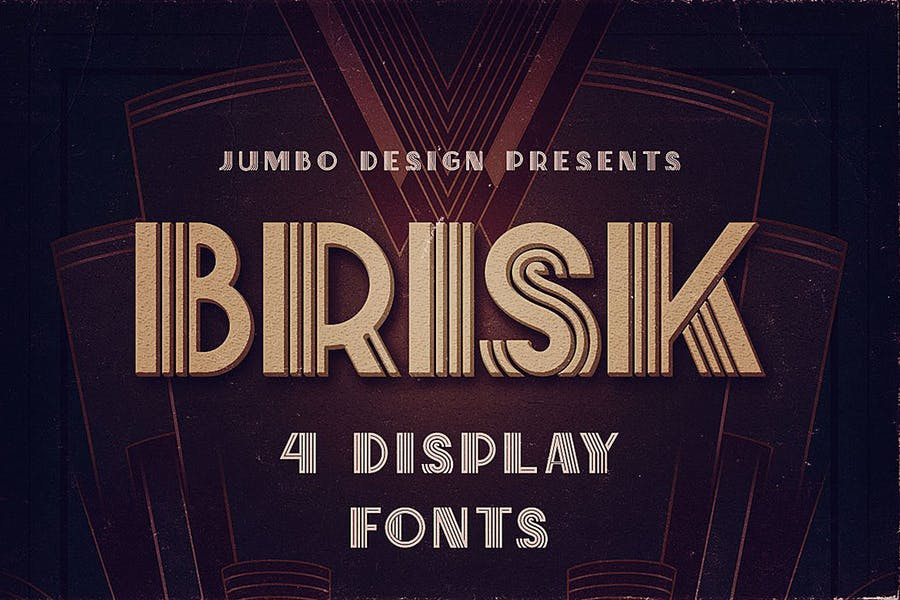
Brisk - ArtDeco Display Font
Brisk ArtDeco Display Font is perfect for luxury hotel branding, vintage cocktail bar signage, Art Deco-inspired events, elegant theater marketing, sophisticated nightclub graphics, upscale fashion campaigns, glamorous party invitations, and refined Jazz Age celebrations.
What makes Brisk ArtDeco Display Font exciting is its geometric elegance that captures the sophisticated glamour and architectural precision of the 1920s Art Deco movement with Jazz Age sophistication and streamlined luxury. The font features angular letterforms with geometric proportions and deco character that evoke skyscrapers, luxury liners, and the bold modernism of the Roaring Twenties and Art Deco architectural magnificence. Its distinctive deco styling and glamorous appeal communicate sophistication, modernism, and luxury elegance, making every message feel designed for the golden age and touched by the streamlined beauty of Art Deco sophistication and Jazz Age glamour.
The Brisk ArtDeco Display Font family includes regular weight with uppercase and lowercase letters, numerals, punctuation marks, and special characters. Premium versions often feature geometric alternates and deco elements that enhance the sophisticated, vintage aesthetic perfect for luxury and entertainment applications.
This sophisticated Art Deco typeface brings instant glamour and period authenticity to any 1920s-inspired project. Brisk ArtDeco Display Font Free Download delivers exceptional results for luxury hospitality and entertainment businesses seeking to communicate Art Deco elegance, Jazz Age sophistication, and vintage luxury to discerning audiences and period design enthusiasts.
The geometric character of Brisk ArtDeco Display Font makes it particularly valuable for luxury hotels, upscale cocktail venues, and vintage-inspired fashion brands. Its excellent impact ensures luxury messaging and sophisticated communications capture attention while maintaining the distinctive Art Deco aesthetic that appeals to customers seeking authentic 1920s experiences and geometric elegance.
Luxury entertainment marketers appreciate how Brisk ArtDeco Display Font effortlessly conveys period authenticity and sophisticated glamour. The font's angular proportions and deco details create prestigious brand materials that establish connections with audiences who value Art Deco design, Jazz Age culture, and the geometric sophistication of vintage luxury and architectural modernism.
The versatile sophistication of this typeface extends to luxury real estate, upscale events, and cultural institutions where Art Deco authenticity enhances luxury positioning and period appeal. Brisk ArtDeco Display Font Free Download provides creative professionals with an essential tool for developing memorable, glamour-driven designs that resonate with audiences who embrace Art Deco elegance, Jazz Age sophistication, and the geometric beauty of 1920s luxury in their entertainment and lifestyle experiences.